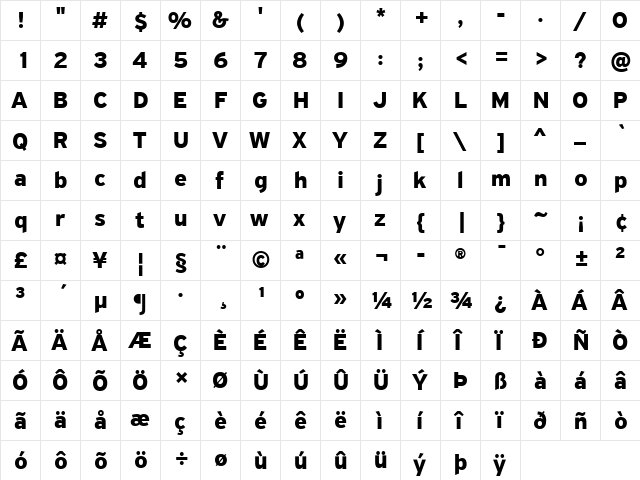
PF Highway Sans Pro Bold
| Foundry | Parachute蠗orldwide |
| Designer | Panos Vassiliou |
Design Context for PF Highway Sans Pro Typeface
PF Highway Sans Pro offers clean, dependable letterforms without strong stylistic allegiance, making it a practical choice for designers who need flexibility. The heavy weight commands attention and anchors typographic hierarchies.